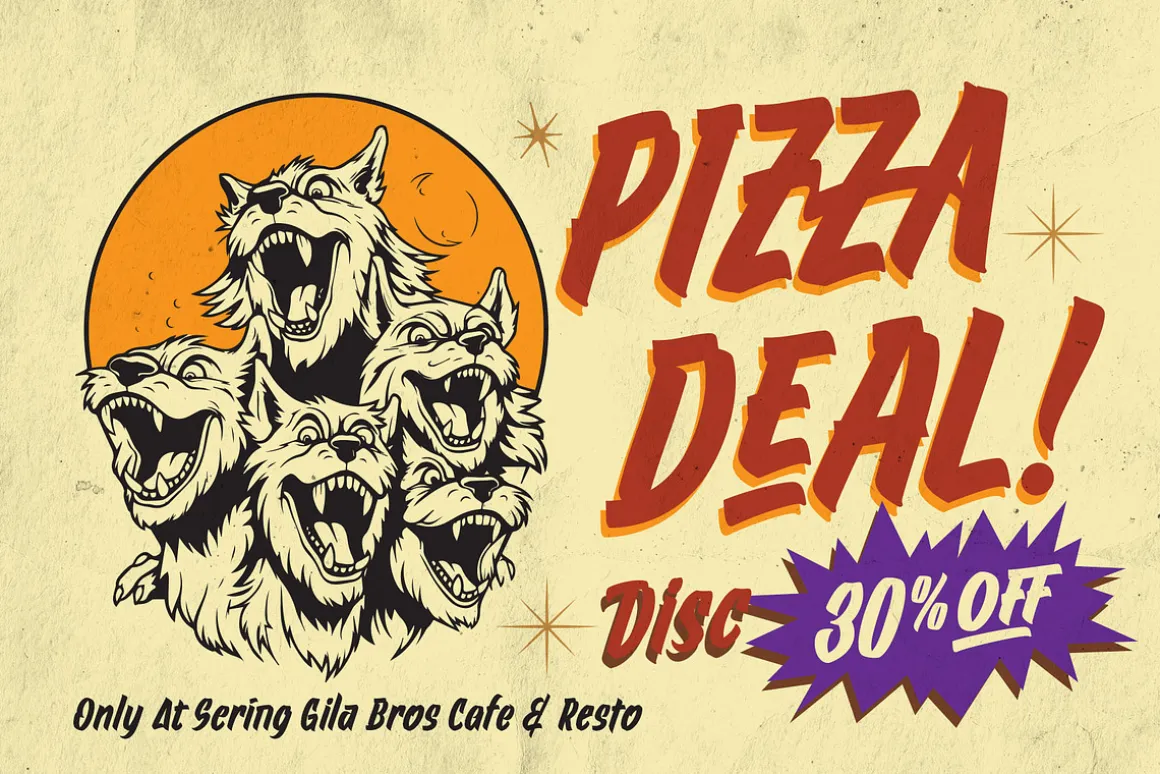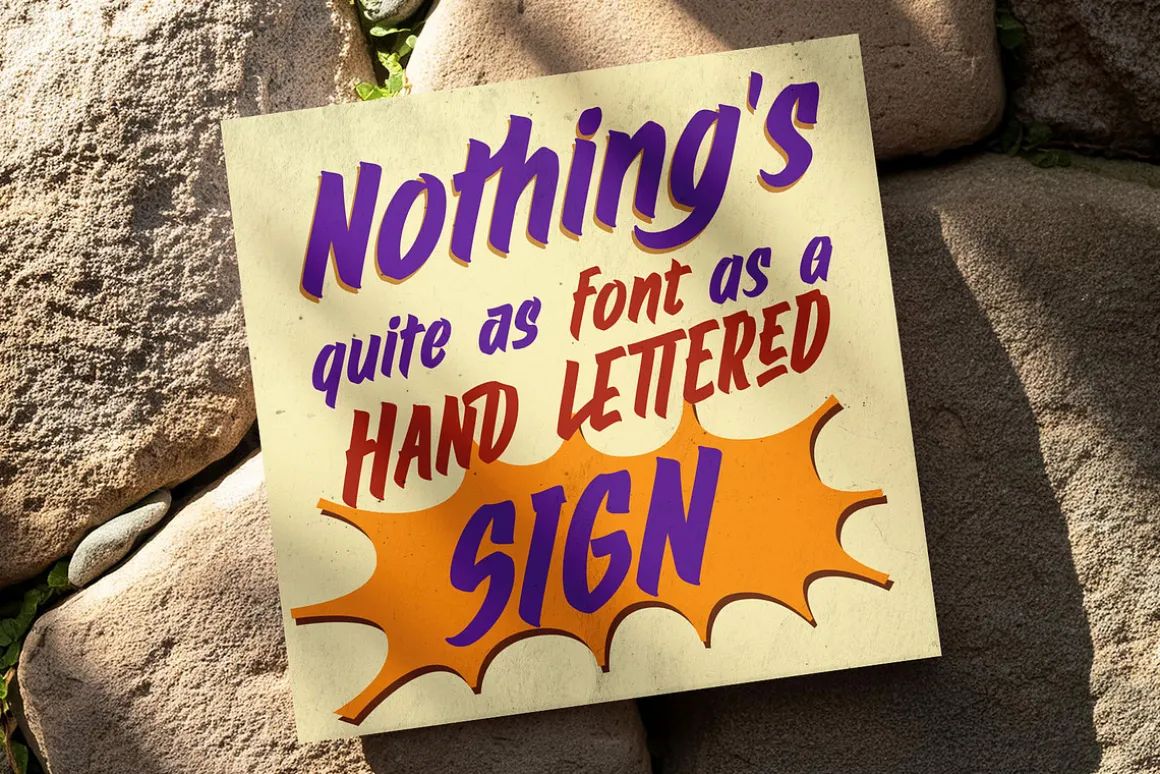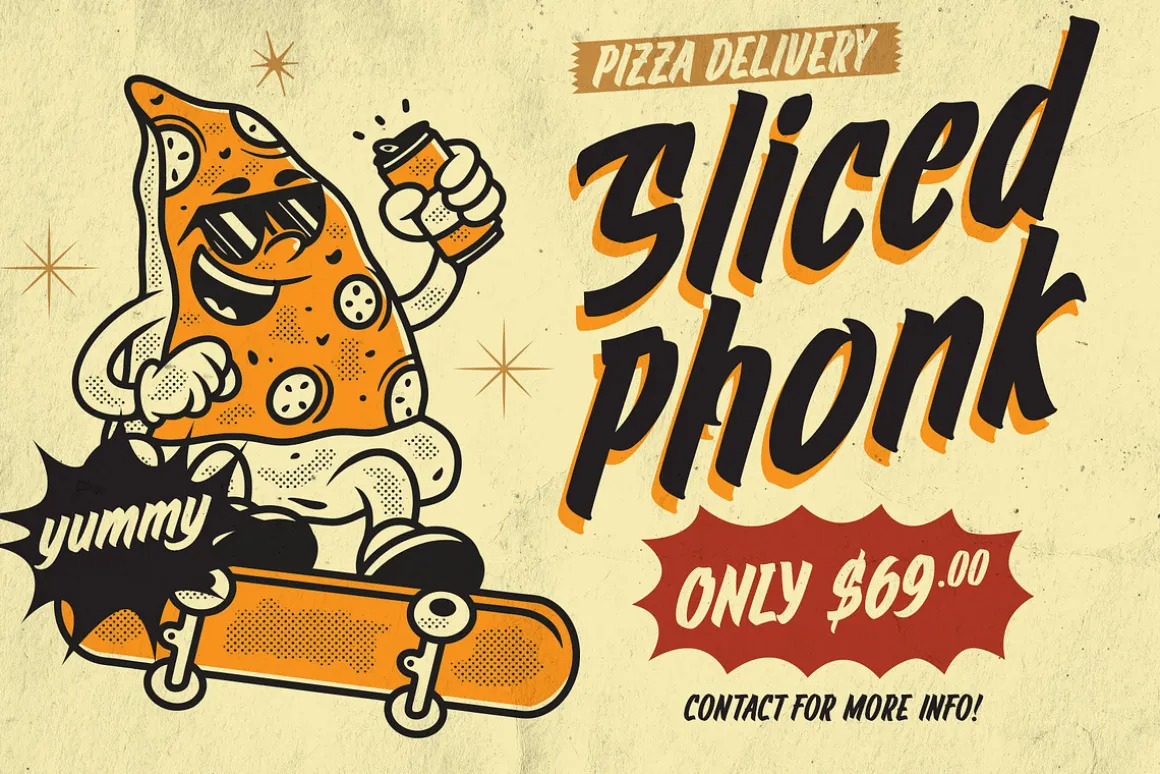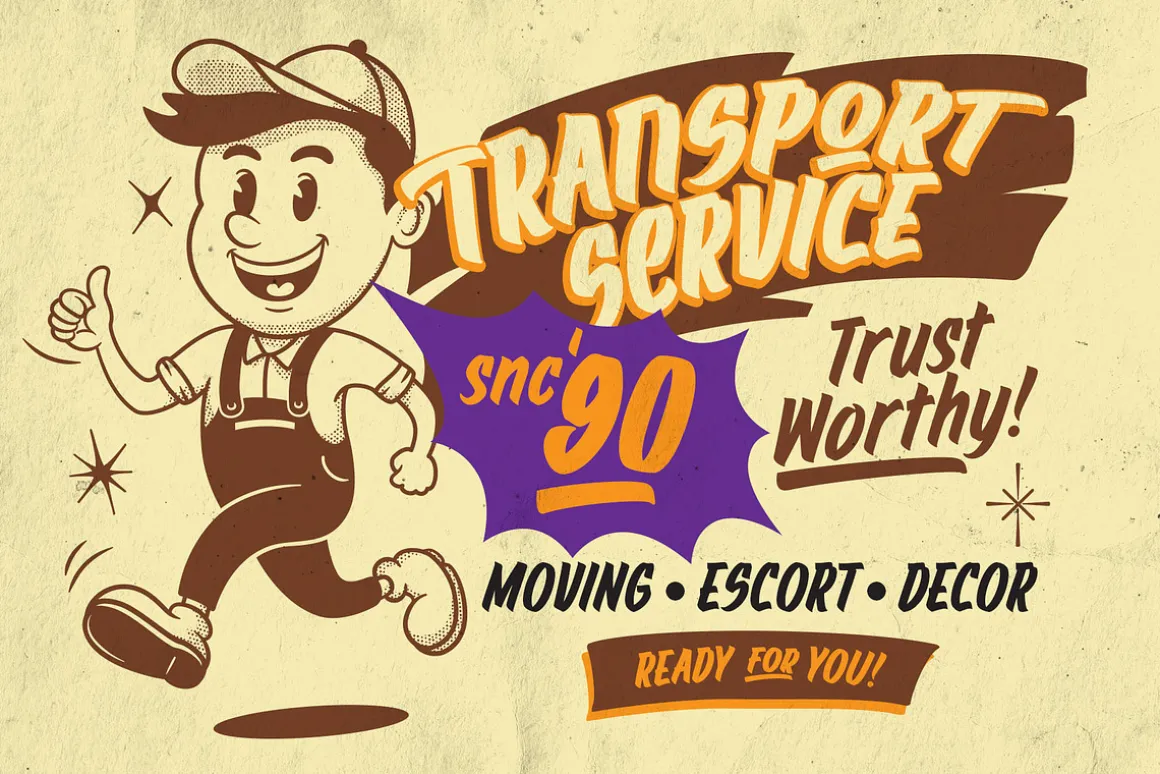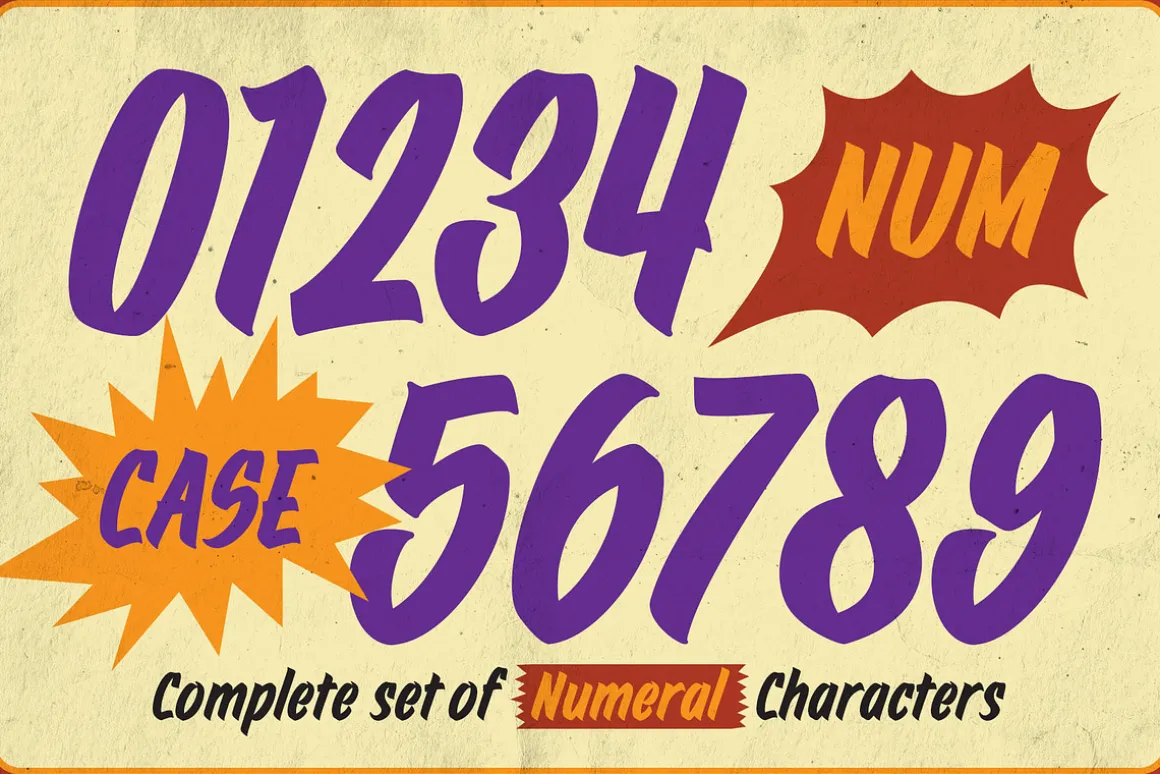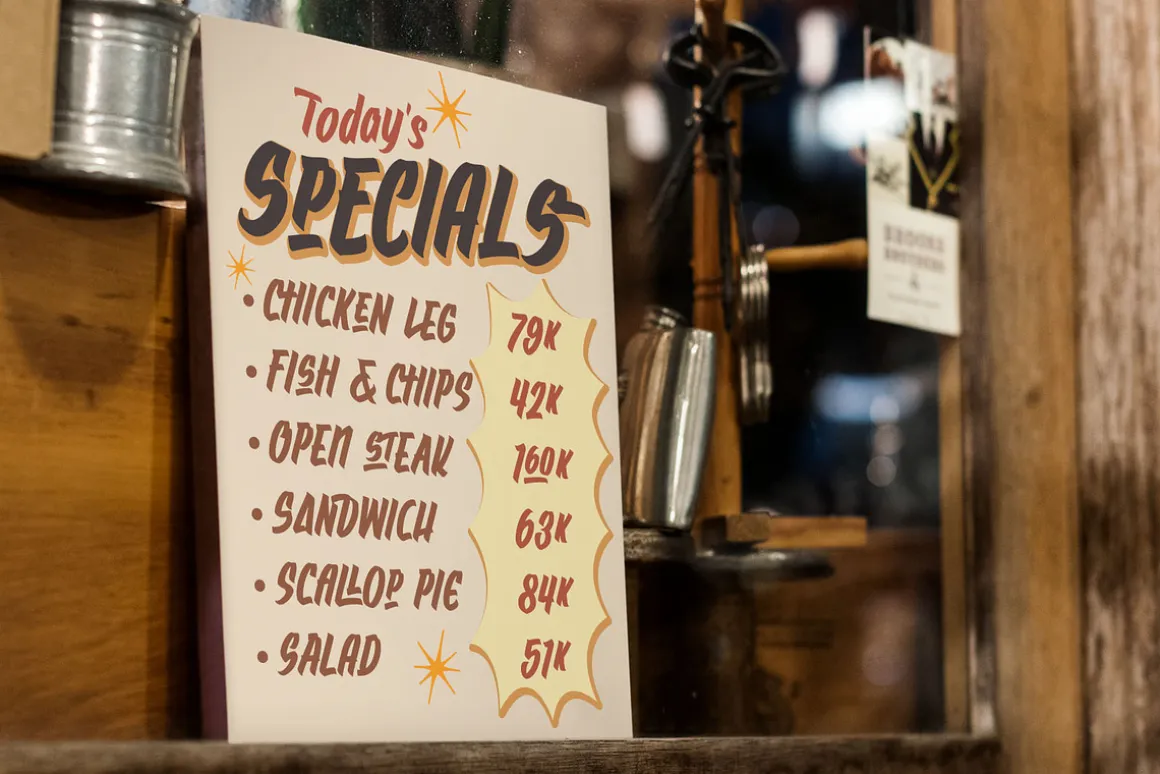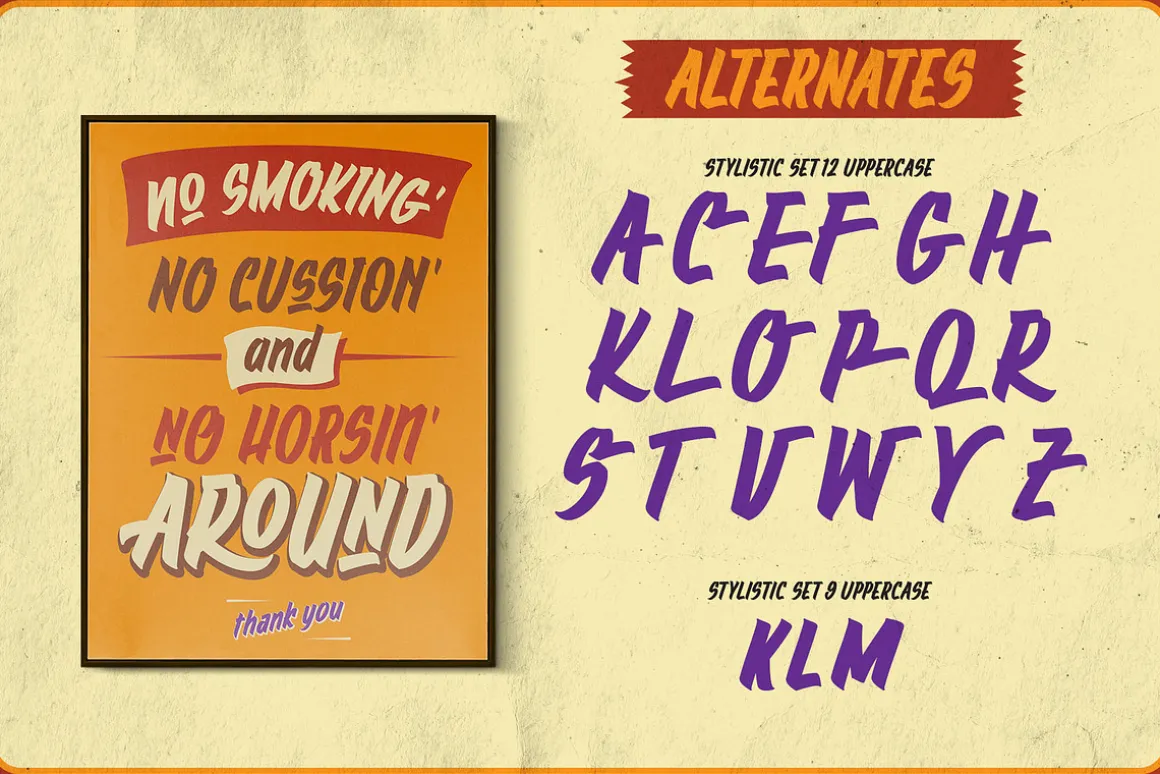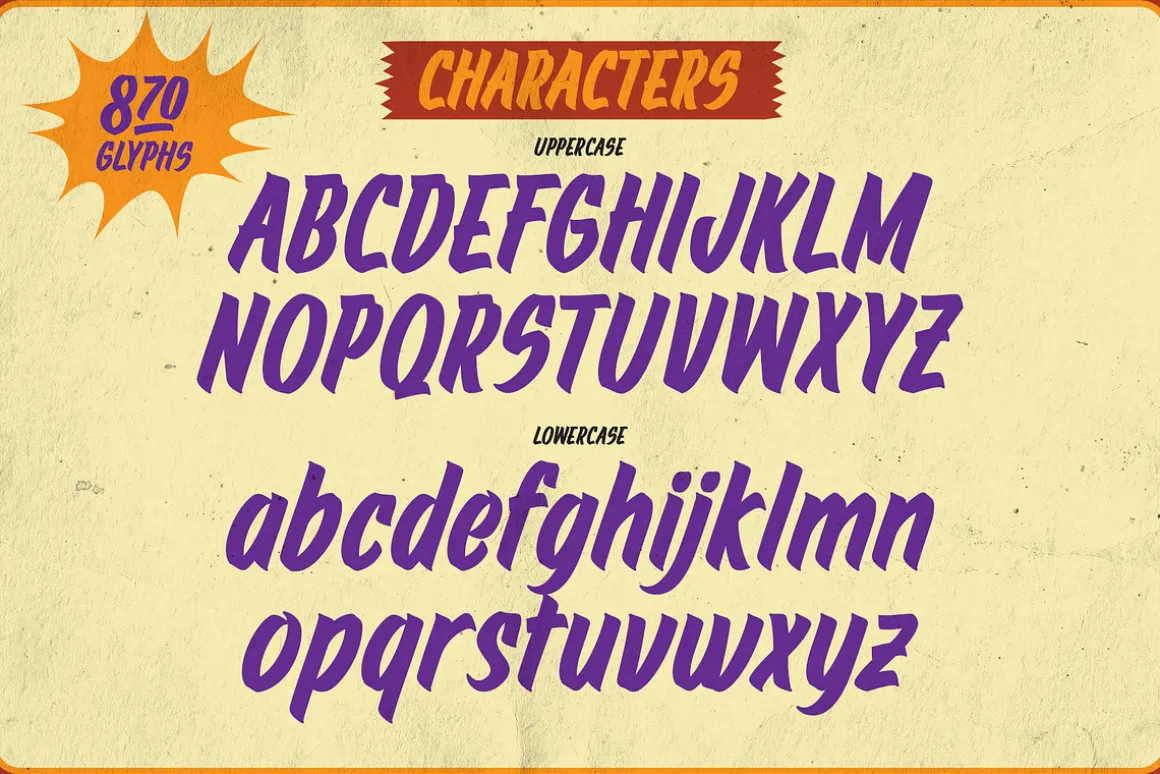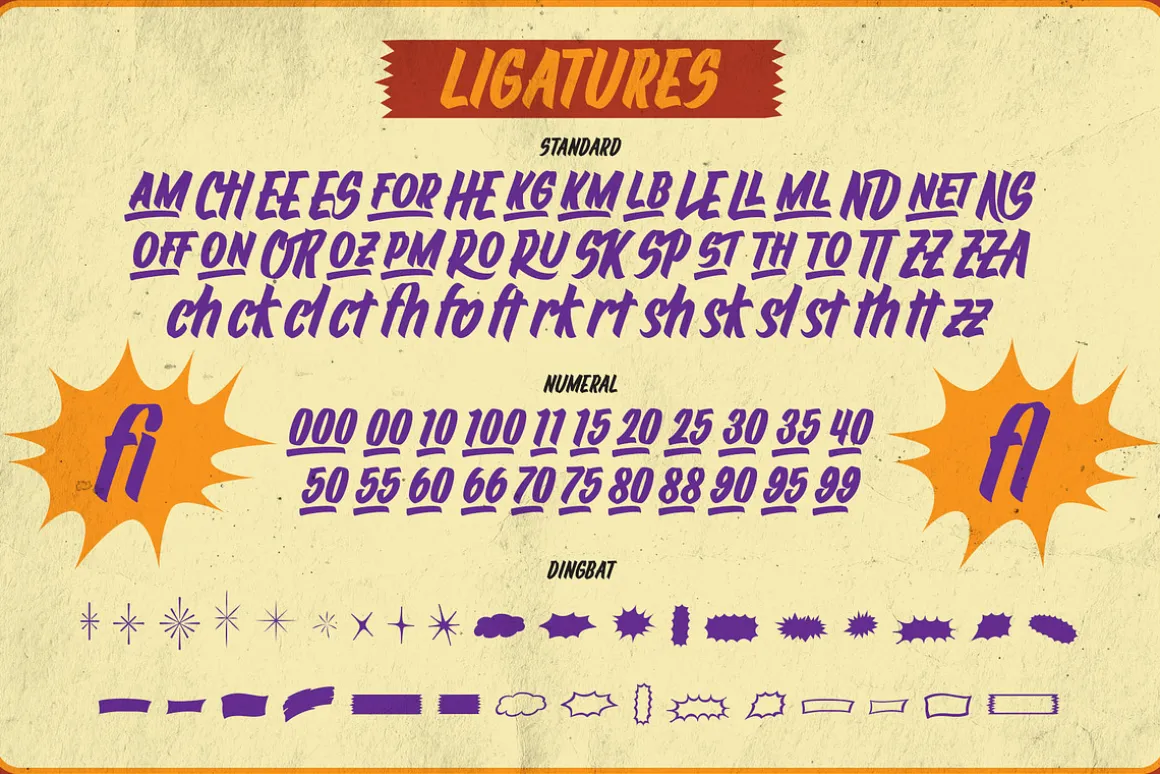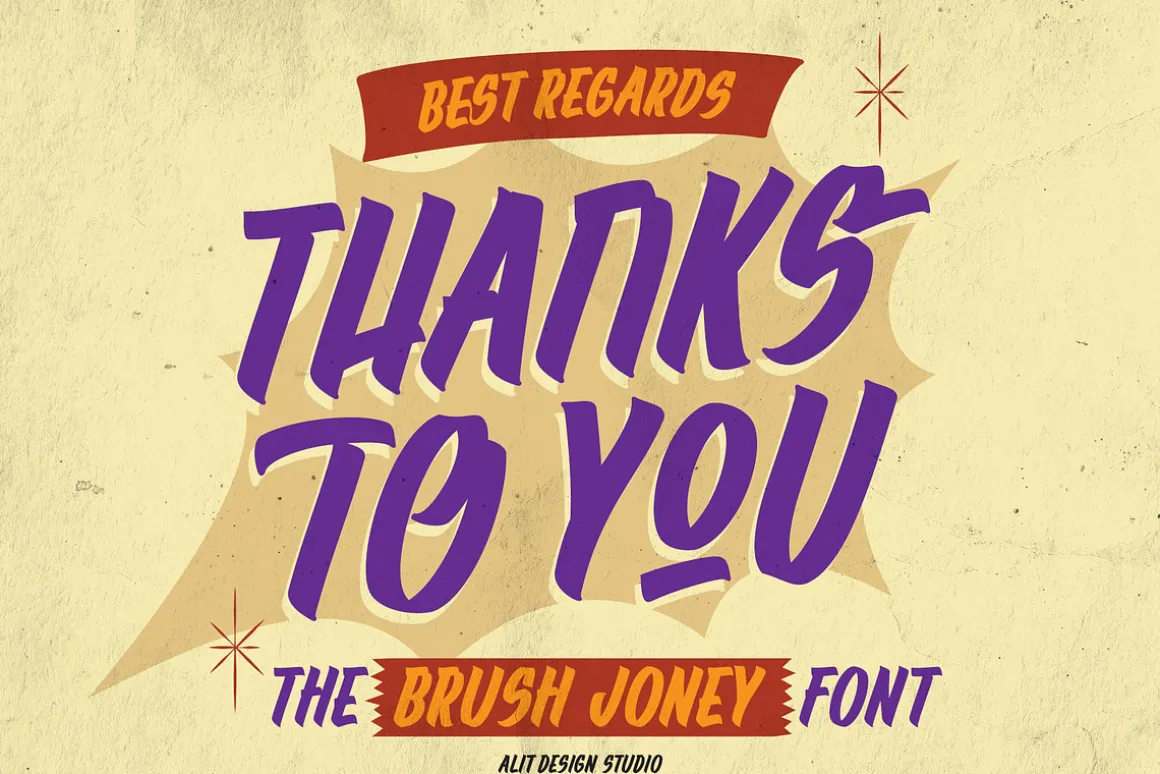
Brush Joney Font is a meticulously crafted typeface that brings the timeless allure of vintage brush lettering to the digital age. Inspired by classic sign art and traditional handwritten brush strokes, this font offers a perfect balance of boldness and fluidity, ideal for a wide range of creative projects. Whether you’re working on branding, logos, packaging, posters, or social media graphics, Brush Joney gives your designs an authentic, hand-drawn feel with its rich collection of features.
Font Features:
870 Glyphs & Characters:
Brush Joney boasts an impressive set of 870 characters, giving you ultimate flexibility in your design work. With such an extensive collection, you can create unique typographic compositions without limits. From uppercase and lowercase letters to numbers, punctuation, and symbols, the possibilities are endless. -
Alternates:
Multiple alternate characters are included for every letter, allowing you to switch up styles effortlessly. This feature lets you customize each word to ensure no two designs look the same, making your typography more dynamic and personal. -
Ligatures:
Natural letter connections are key to creating a realistic handwritten feel. Brush Joney includes a variety of stylish ligatures (automatically connecting certain letter combinations) that replicate the look of genuine brush strokes, ensuring smooth and seamless flow between letters. -
Swashes:
Swashes are essential for adding flair and drama to your text. Brush Joney offers a variety of decorative swashes, perfect for enhancing letterforms, especially at the beginning or end of words, to create that eye-catching vintage appeal. -
Dingbats:
A bonus set of dingbats is included with Brush Joney, featuring playful, decorative icons and illustrations. These elements are designed to complement the font’s aesthetic, making it easy to incorporate stylish accents and embellishments into your designs. -
Multilingual Support:
Brush Joney comes with extensive multilingual support, covering a wide range of Latin-based languages. Whether your design requires special characters or diacritical marks, this font ensures that your text is legible and beautiful in various languages, including English, Spanish, French, German, Italian, Portuguese, and more.
Stylistic Appeal & Versatility:Brush Joney’s vintage brush aesthetic is perfect for those who love the look of traditional sign painting. Its thick, expressive strokes evoke the charm of hand-painted storefronts, street signs, and old-school advertisements, while its modern OpenType features make it highly adaptable for contemporary projects.
With Brush Joney Font, you get a high-quality, handcrafted brush font that combines nostalgia with modern functionality. Its extensive feature set, including alternates, ligatures, swashes, and dingbats, paired with easy access through PUA encoding, makes it a dream tool for any designer looking to inject vintage charm and handwritten authenticity into their work.